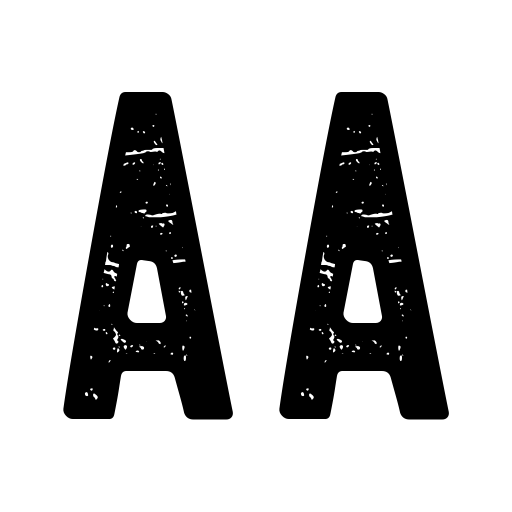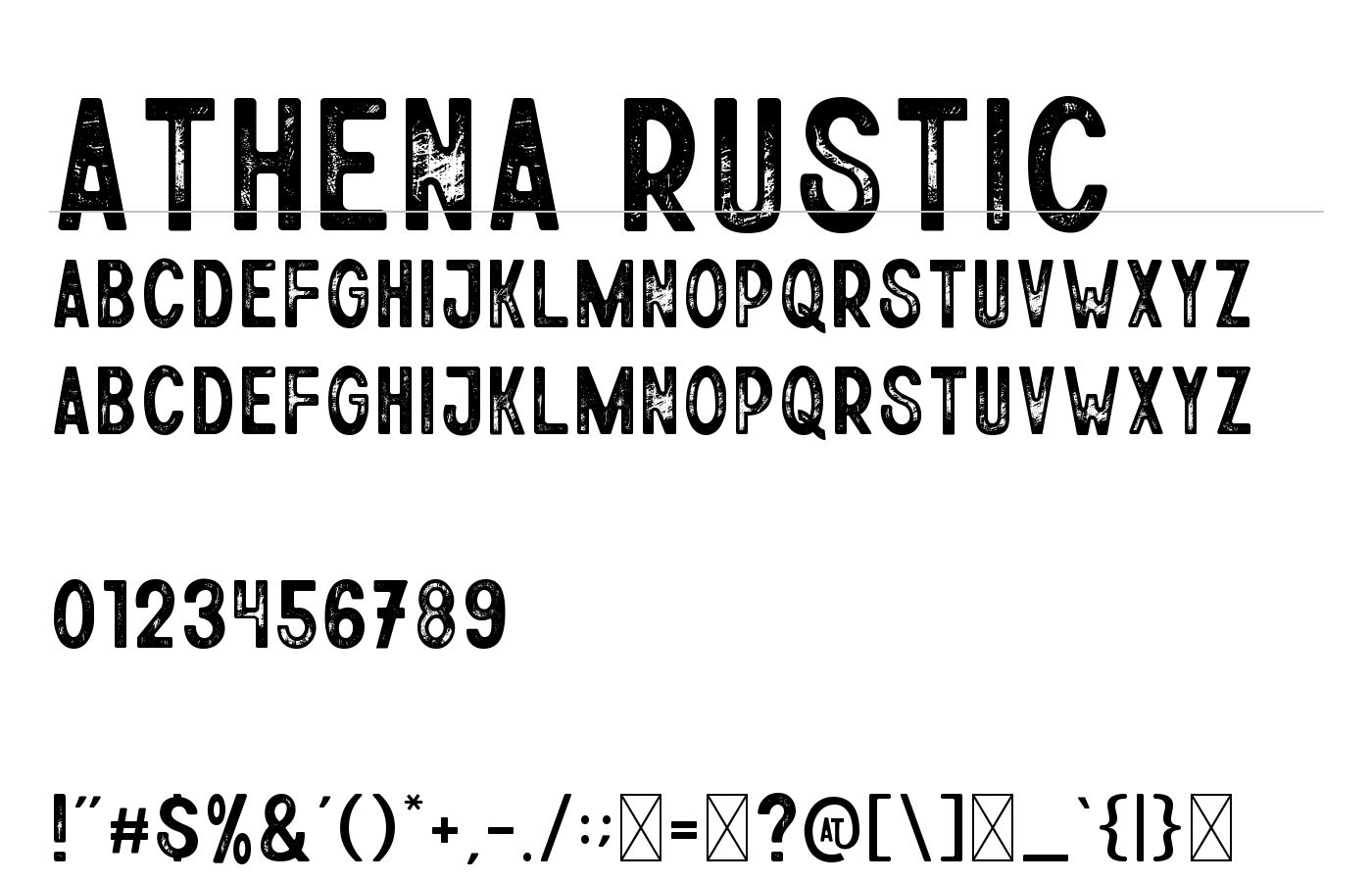
Athena Rustic is a bold, condensed sans serif font with a distressed texture that gives it a rugged and vintage feel. Its tall, narrow letterforms combined with the worn, imperfect surface make it perfect for designs aiming to evoke a handcrafted, gritty, or industrial aesthetic. This font works well for headlines, logos, and packaging where a strong, authentic character is desired.
Athena Font
About Athena Font